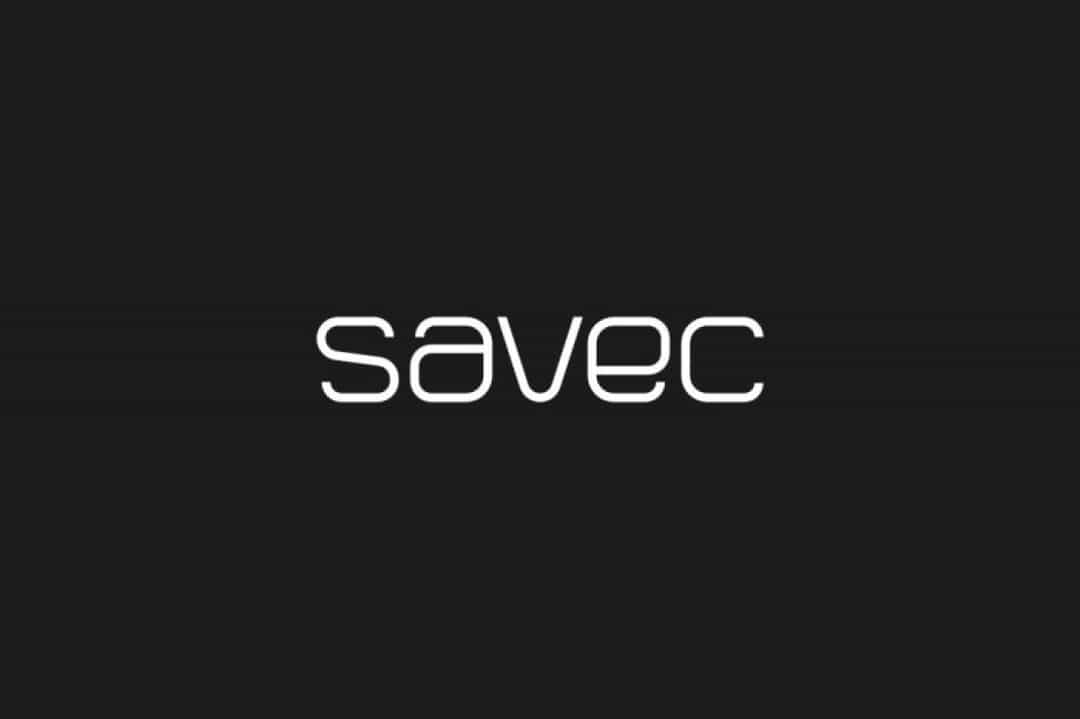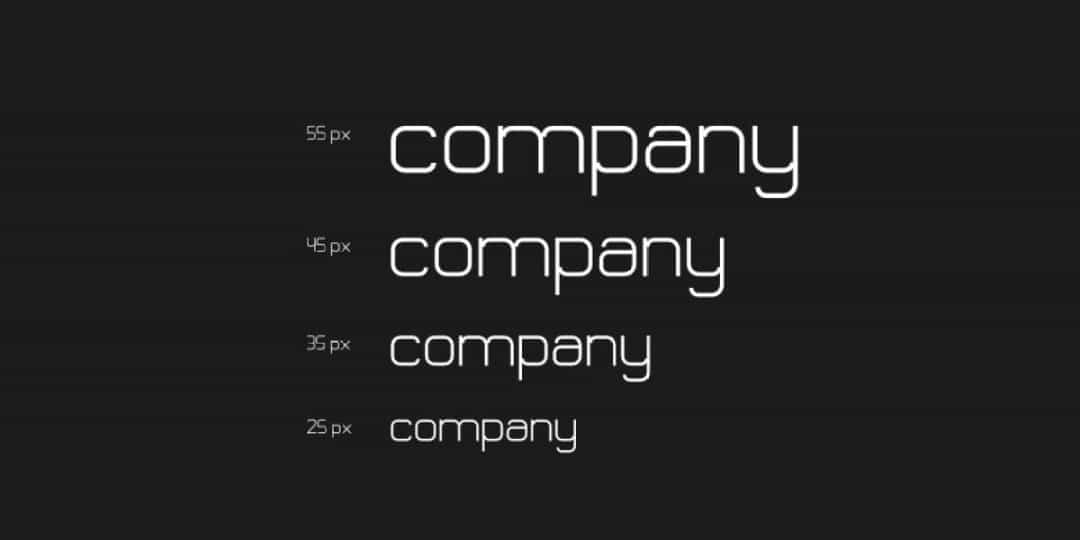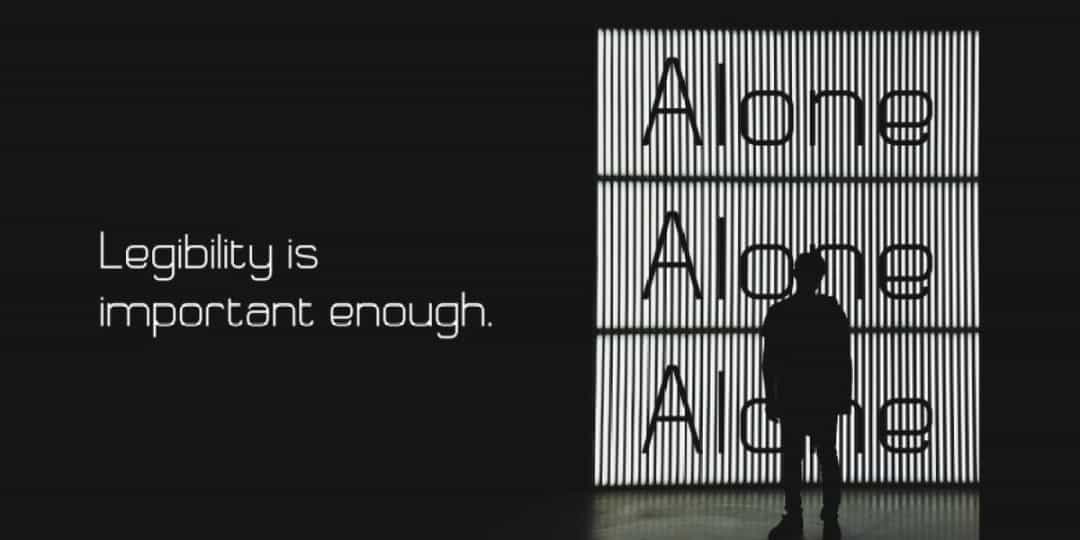
Savec is a unique display font with sans serif characters that stand out. Careful consideration has gone into crafting each character so others are easily able to recognize this font when seeing any one of its unique characters.